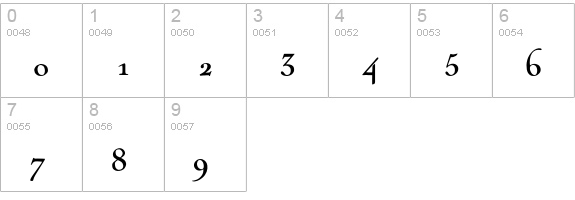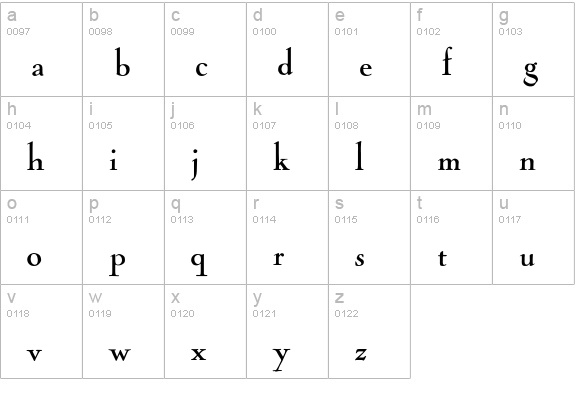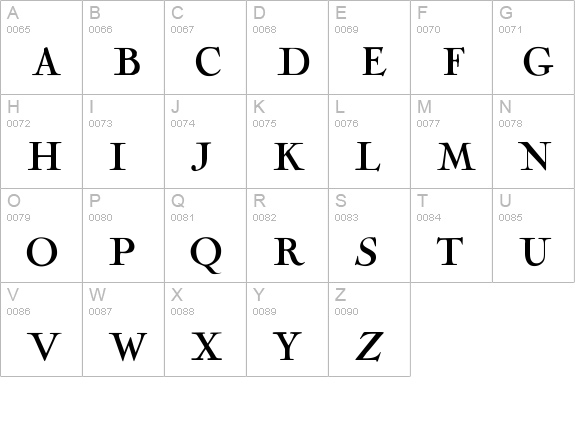
Navajo Font Details
The Navajo font is a stunning and intricate typeface inspired by the rich cultural heritage of the Navajo people. With its elegant lines and unique character shapes, this font captures the essence of traditional Navajo artistry and design. The Navajo font is perfect for adding a touch of Native American flair to your design projects, whether you're creating posters, invitations, or branding materials. Best of all, the Navajo font is available for free download at FontsMarket.com. So you can easily incorporate this beautiful typeface into your work without any cost. Embrace the beauty and history of Navajo culture with the Navajo font today!